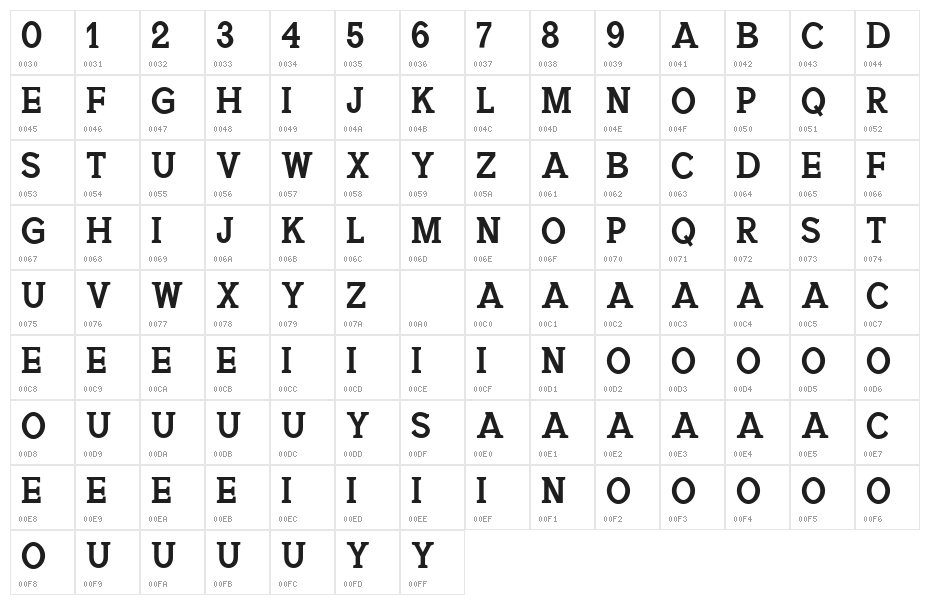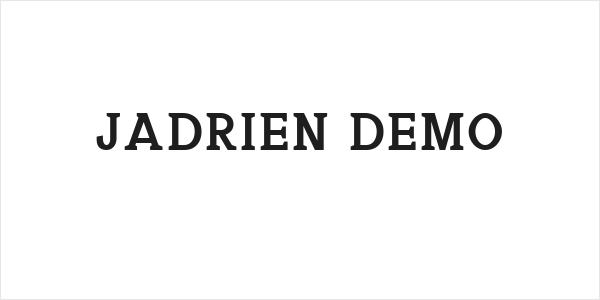
Jadrien Demo Font
Jadrien Demo Description
This font features a classic serif style with strong, bold strokes and a traditional appearance. The characters are well-defined with noticeable serifs that add a touch of elegance and formality. The uppercase letters are tall and commanding, while the lowercase letters maintain a consistent style that complements the overall design. The numerals are robust and clear, making them easily readable. This font is versatile, suitable for both digital and print media, and can be used in a variety of contexts where a formal and authoritative presence is desired.
| Proposed Projects | Ideal for book covers, formal invitations, editorial design, and branding projects that require a traditional and authoritative look. |